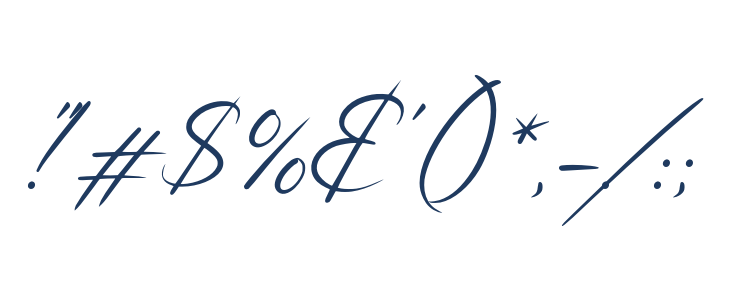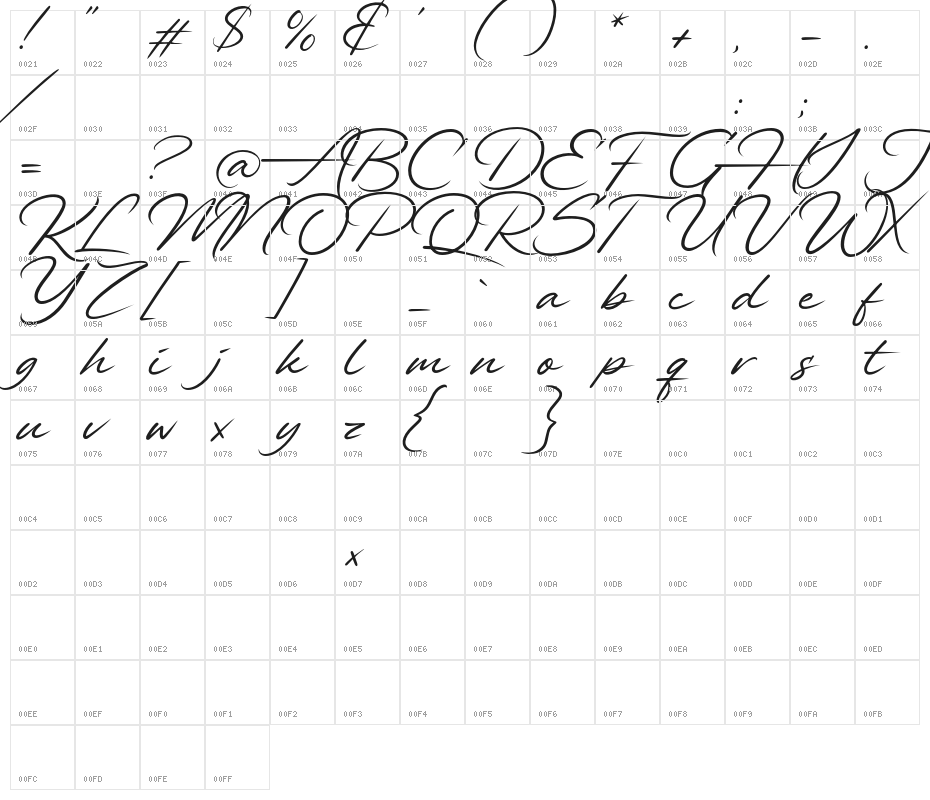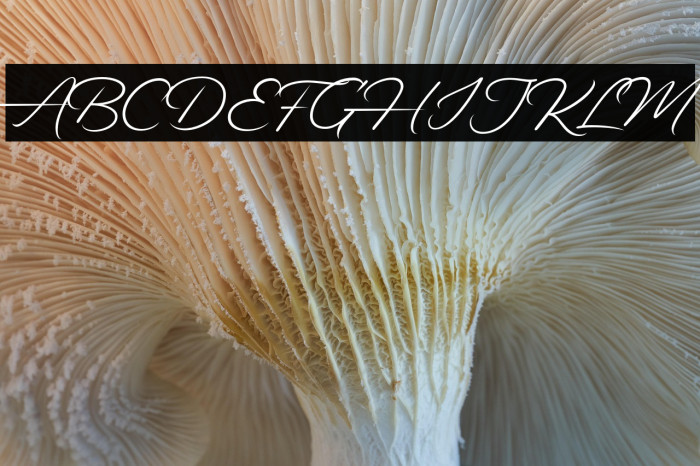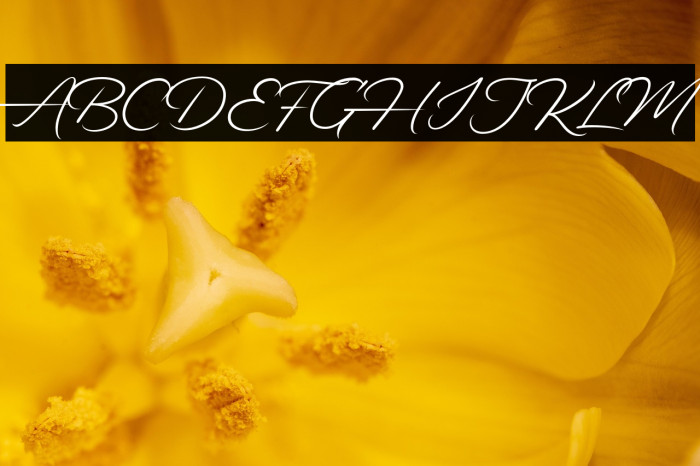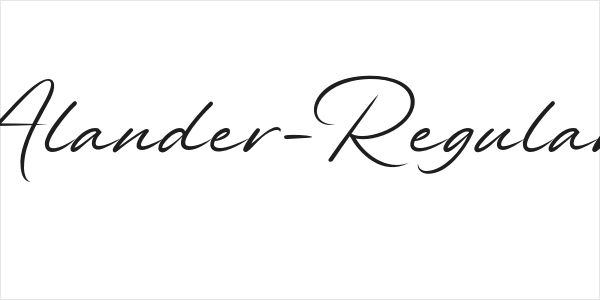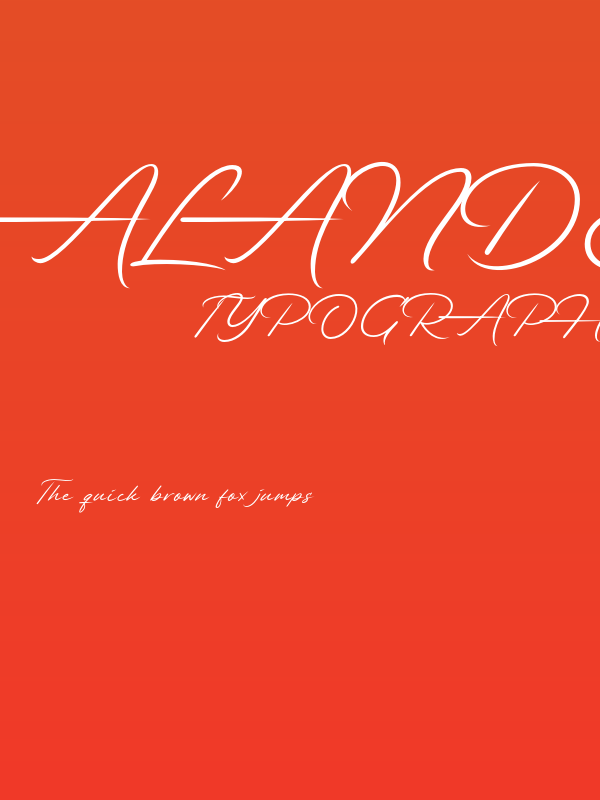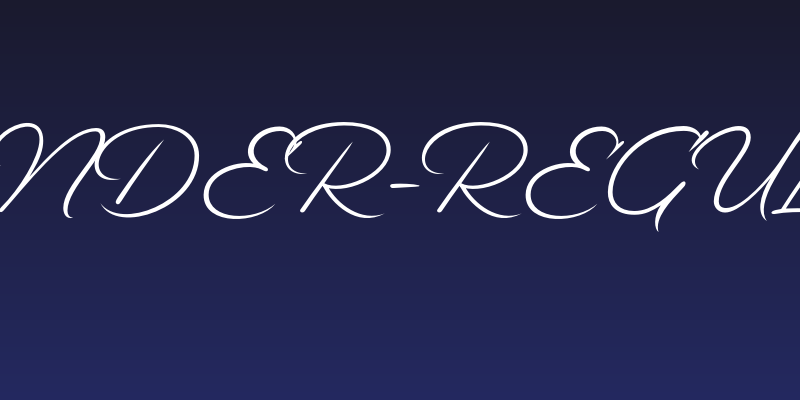
Alander-Regular Font
Alander-Regular Description
This font exudes elegance and sophistication with its fluid, cursive style. The characters are gracefully connected, creating a seamless flow that mimics natural handwriting. The uppercase letters are slightly more ornate, featuring delicate loops and flourishes, while the lowercase letters maintain a consistent, smooth appearance. The numerals and special characters are designed to match the overall aesthetic, ensuring a cohesive look. This font is perfect for projects that require a touch of class and refinement.
| Use Case | Logos, Invitations, Personal stationery |
| Proposed Projects | Ideal for wedding invitations, elegant branding, personal stationery, and high-end product packaging. |